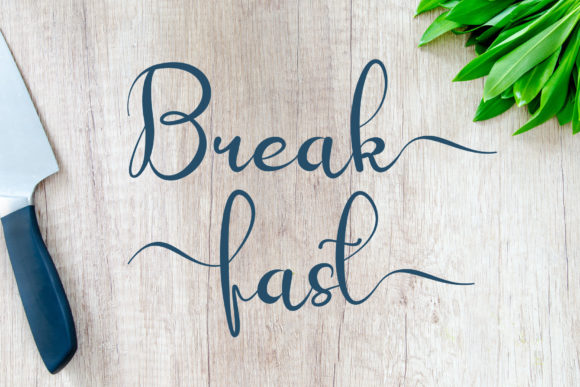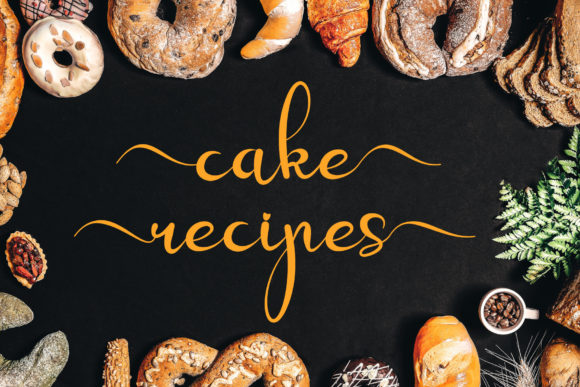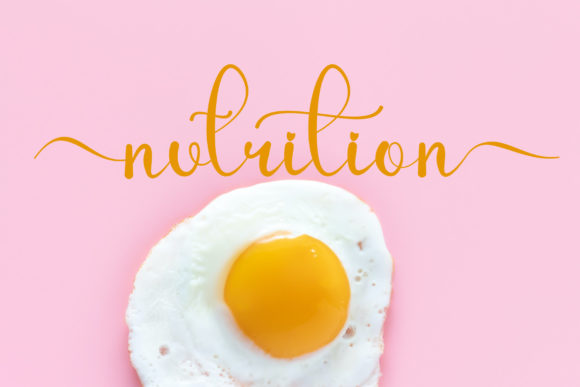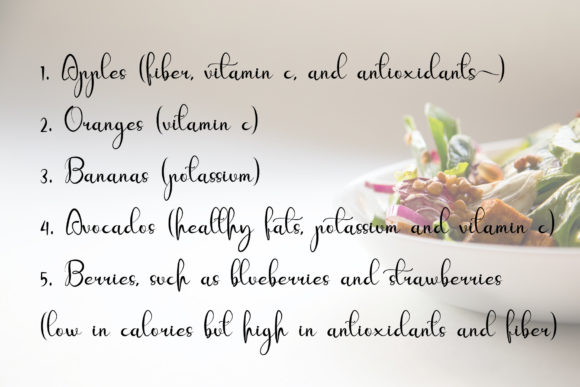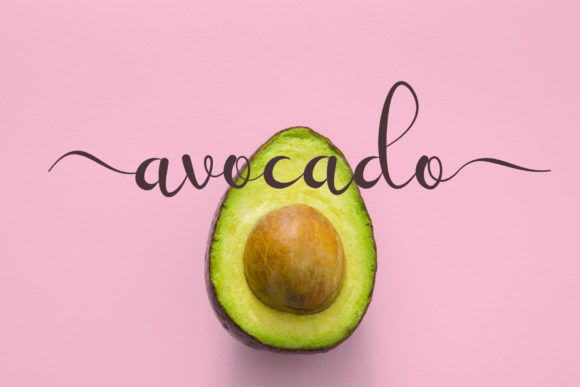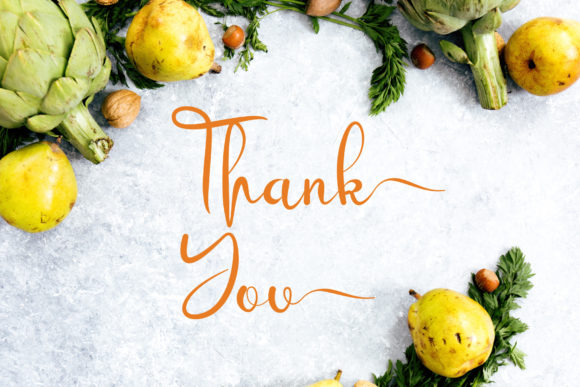
Introducing Good Foods Font: Elevate Your Designs with Sophistication and Elegance
Are you a designer or crafter looking for a font that exudes luxury and refinement? Look no further than Good Foods Font, a chic and sophisticated script font that’s perfect for a wide range of projects. With its stylish alternates and ligatures, Good Foods is sure to elevate your designs and add a touch of elegance to any creative endeavor.
What Makes Good Foods Font So Special?
Good Foods Font is a beautifully crafted script font that’s designed to make a statement. Its refined lines and curves create a sense of sophistication and luxury, making it perfect for high-end branding, packaging, and advertising projects. But what really sets Good Foods apart is its extensive range of stylish alternates and ligatures.
With Good Foods, you’ll have access to a wide range of glyphs and swashes, allowing you to add a personal touch to your designs and make them truly unique. Whether you’re looking to create a custom logo, add some flair to your packaging, or simply want to elevate your social media graphics, Good Foods has everything you need to take your designs to the next level.
Good Foods Font is versatile and adaptable, making it perfect for a wide range of projects. Here are just a few ideas to get you started:
- Branding and Logo Design: Use Good Foods to create a custom logo that exudes luxury and sophistication.
- Packaging Design: Add a touch of elegance to your packaging with Good Foods’ stylish alternates and ligatures.
- Advertising and Marketing: Use Good Foods to create eye-catching ads and marketing materials that stand out from the crowd.
- Social Media Graphics: Elevate your social media graphics with Good Foods’ refined lines and curves.
- Stationery and Invitations: Use Good Foods to create beautiful stationery and invitations that make a lasting impression.
Why Choose Good Foods Font?
With so many fonts on the market, why choose Good Foods? Here are just a few reasons why Good Foods stands out:
- Sophistication and Elegance: Good Foods exudes luxury and refinement, making it perfect for high-end projects.
- Flexibility and Versatility: Good Foods is adaptable and versatile, making it perfect for a wide range of projects.
- Unique and Creative: Good Foods’ stylish alternates and ligatures make it easy to create unique and creative designs.